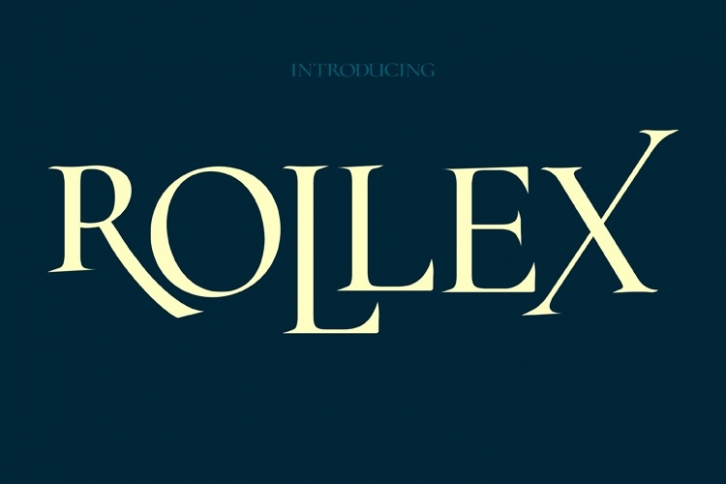
rollex is a great font that was designed by Edcreative. Imagine the amount of combinations you can create using this font! The archive is 12.26 MB and it was released on August 19, 2019. rollex looks beautiful on wedding invitations, greeting cards, logos, posters, labels, t-shirt designs, logos, business cards and is perfect for use in ink or watercolor works, fashion, magazines, packaging and food menus, children's books and more!